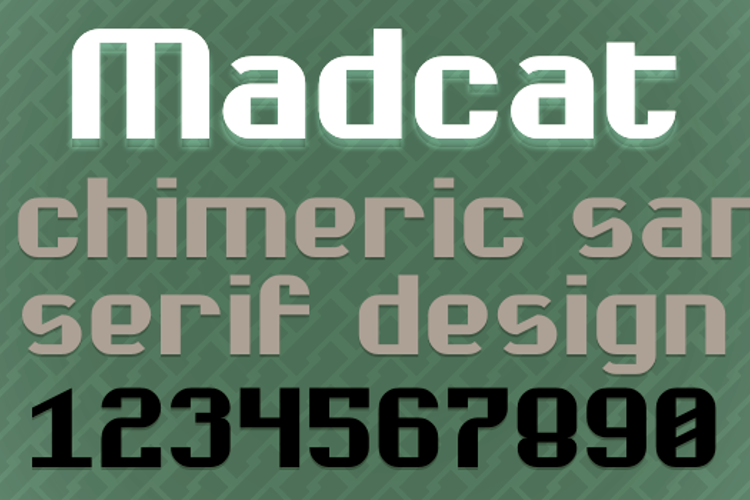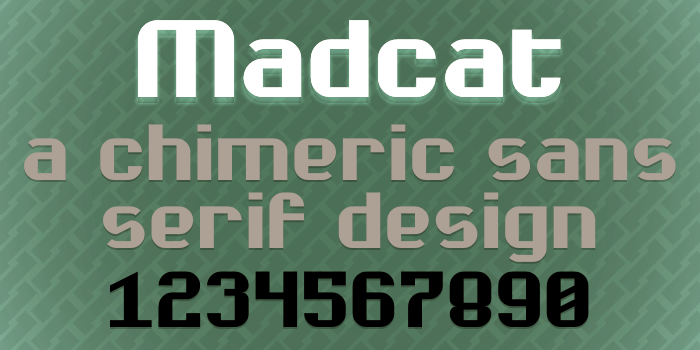
Madcat Font
by Pixel Kitchen
Madkitten Regular Style
About Madcat Font
A combination of deco, sci-fi and modern elements. Supports Danish, Dutch, English, Finnish, French, German, Hungarian, Icelandic, Norwegian, Polish, Portuguese, Spanish, and Swedish!
Recently updated with a smaller, more stylized version called "Madkitten". This one supports English only for now.